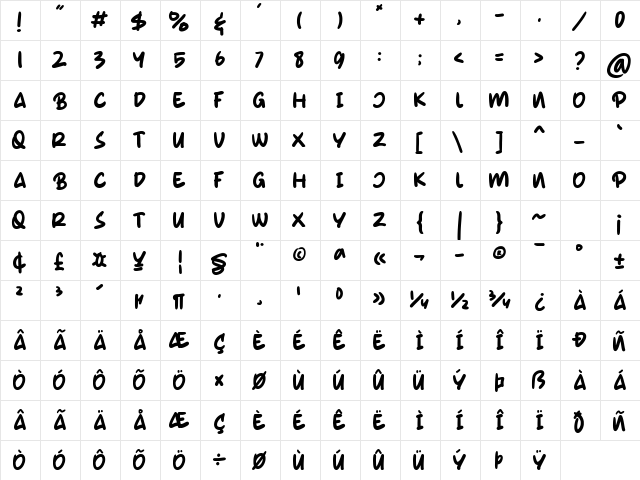
Gumy Monster Regular
| Designer | Kong Font |
Design Context for Gumy Monster Typeface
Gumy Monster is a composed and adaptable typeface that performs quietly and consistently across a wide range of design contexts.